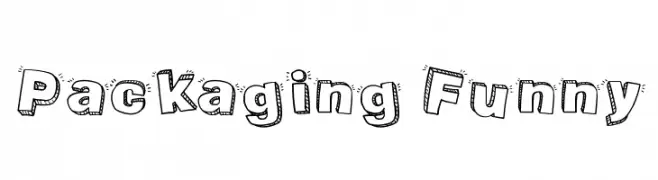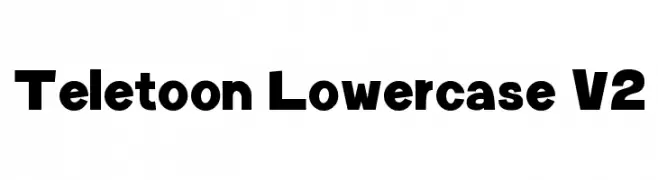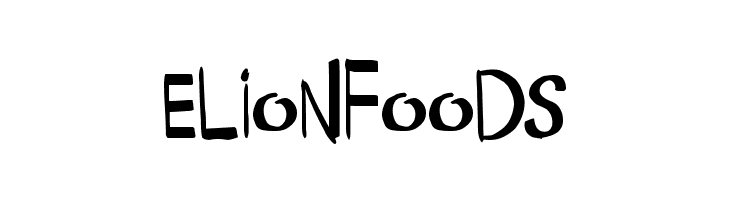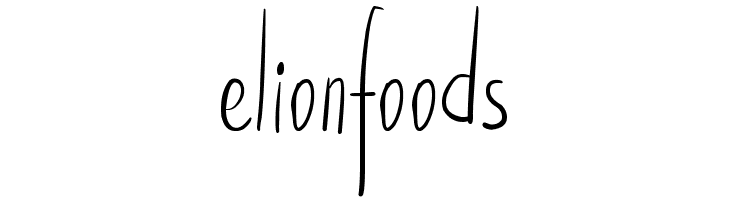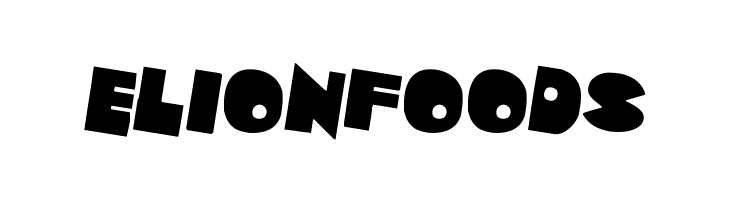
( Fonts by Pizzadude )
A playful, hand-drawn font with bold, uneven strokes.
( Fonts by Southype )
A bold, playful font with thick outlines and a cartoonish style.
( Fonts by Darrell Flood )
A bold, cartoonish font with thick outlines and playful character shapes.
( Fonts by Galdino Otten )
A playful, hand-drawn font with bold, cartoon-like characters and decorative elements.
( Fonts by Here Be Monsters )
A playful, hand-drawn font with a whimsical, cartoon-like style.
( Fonts by Iconian Fonts )
A bold, playful font with rounded, exaggerated forms and a dynamic tilt.